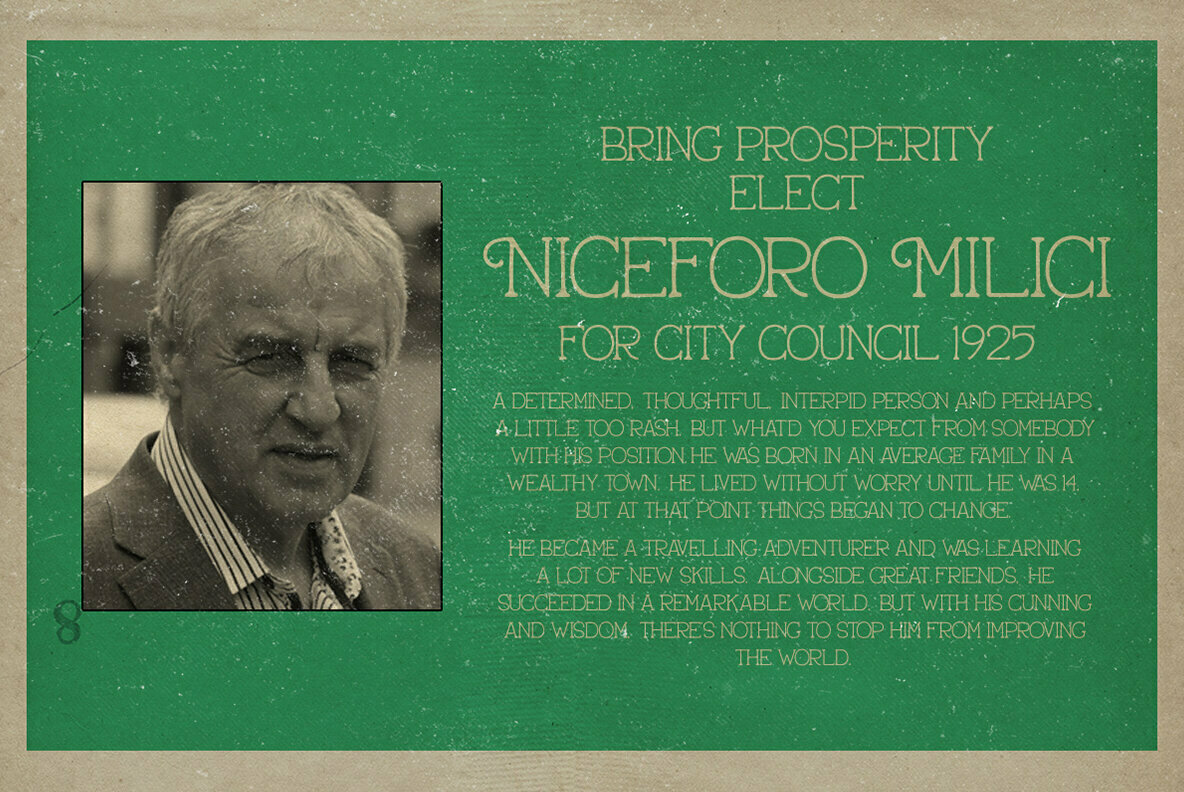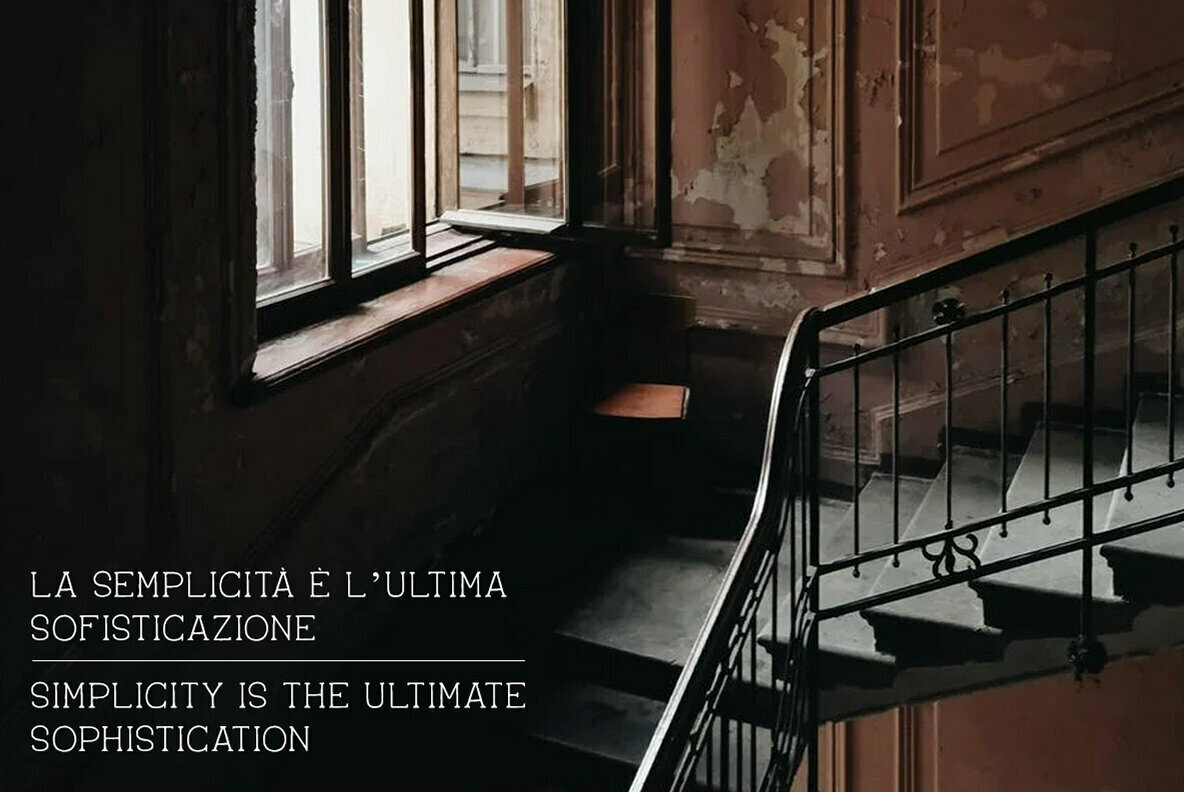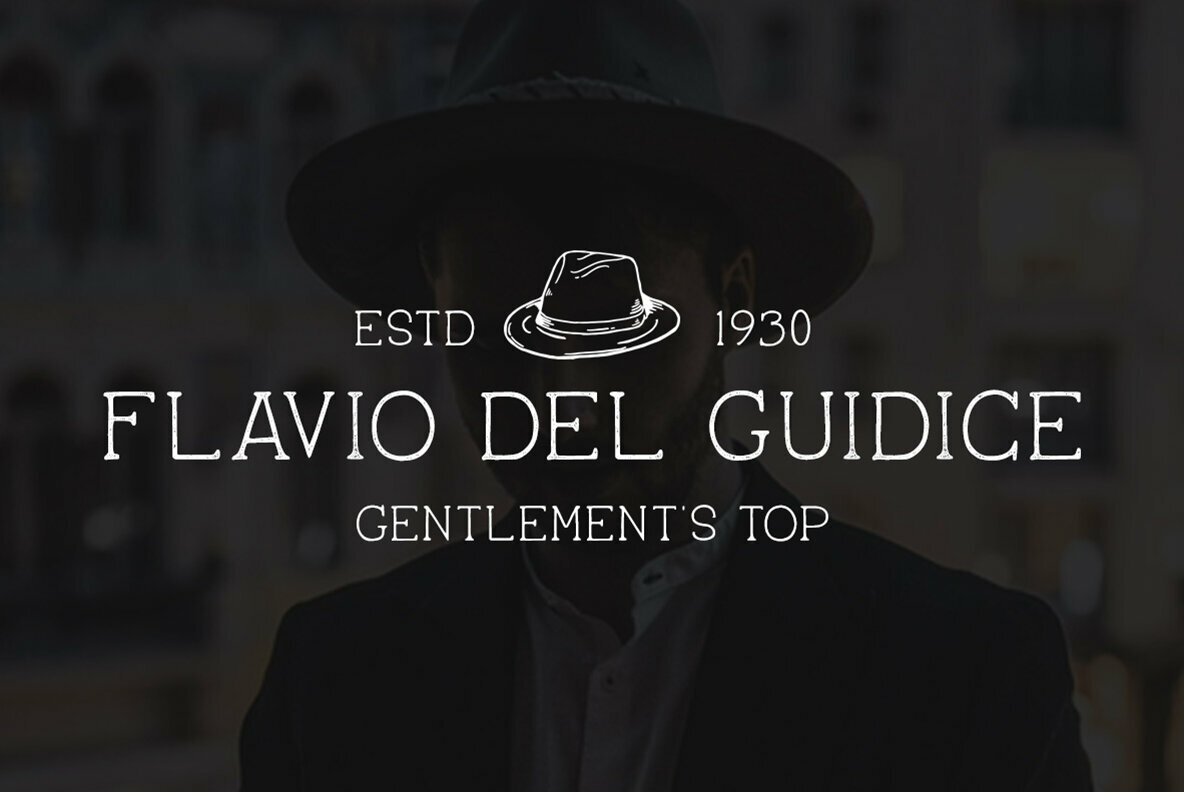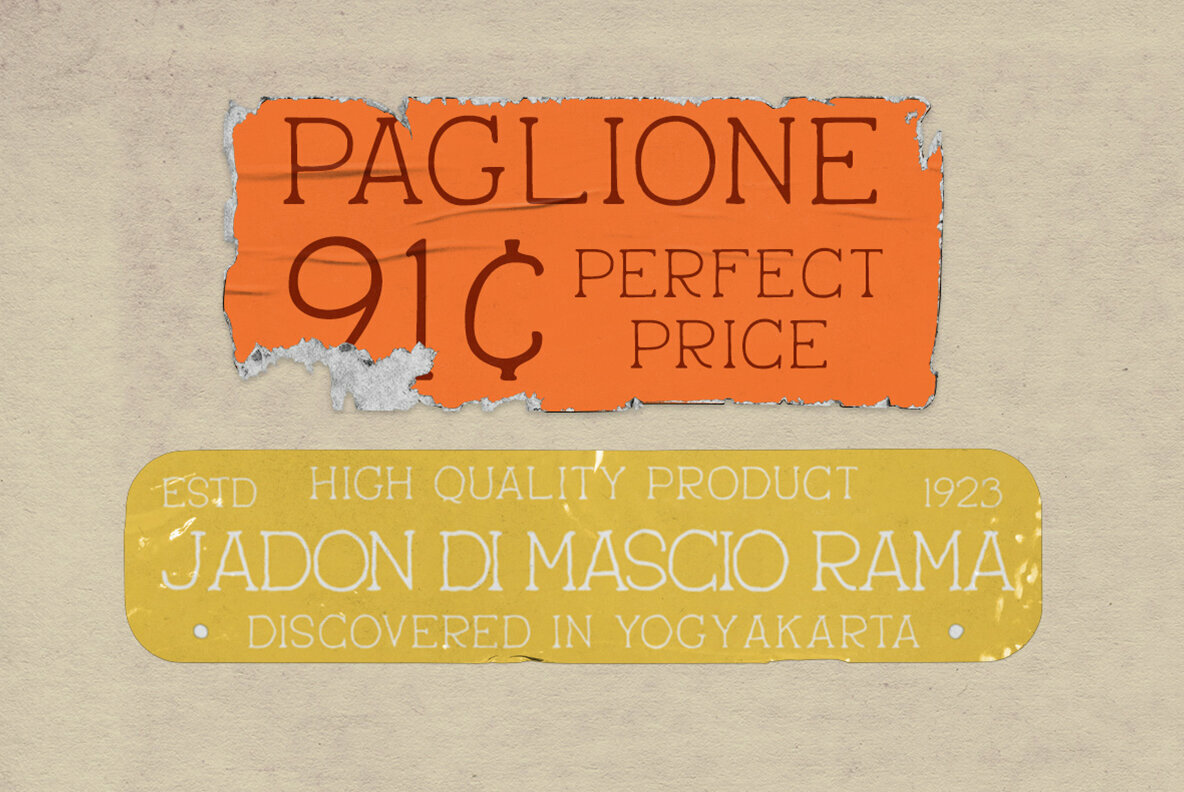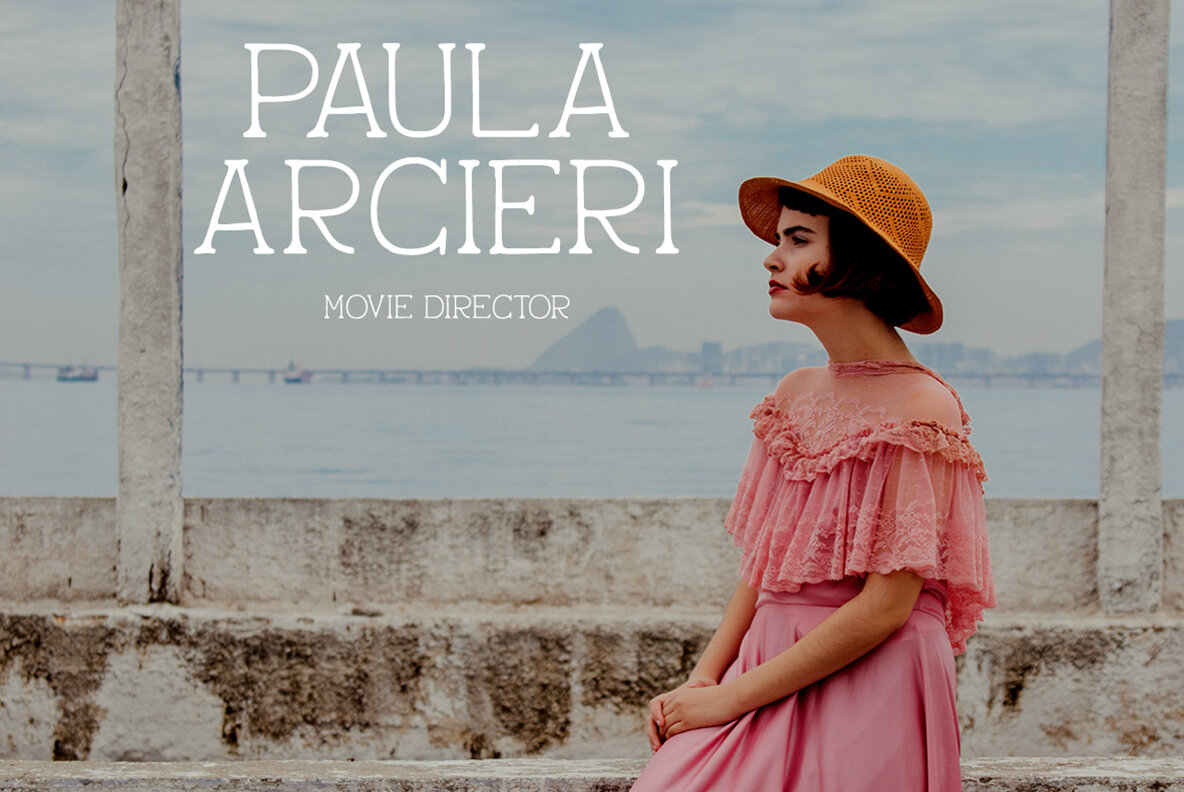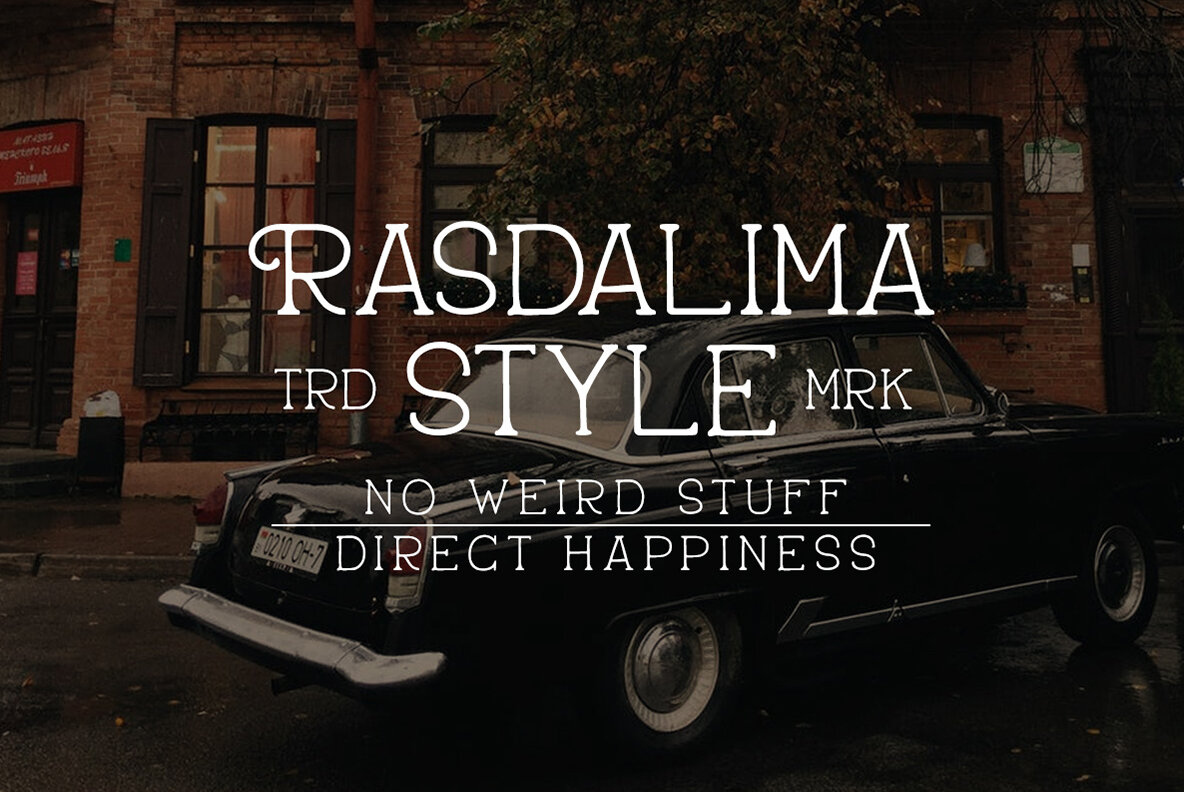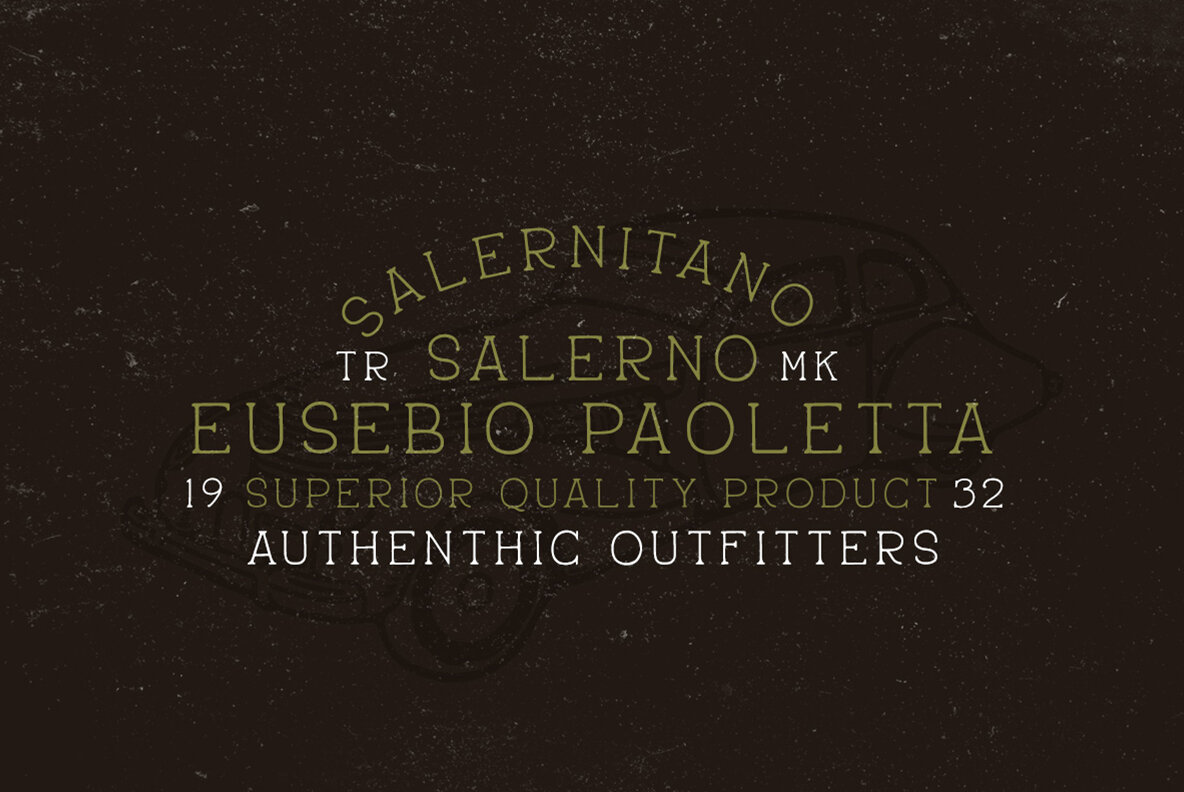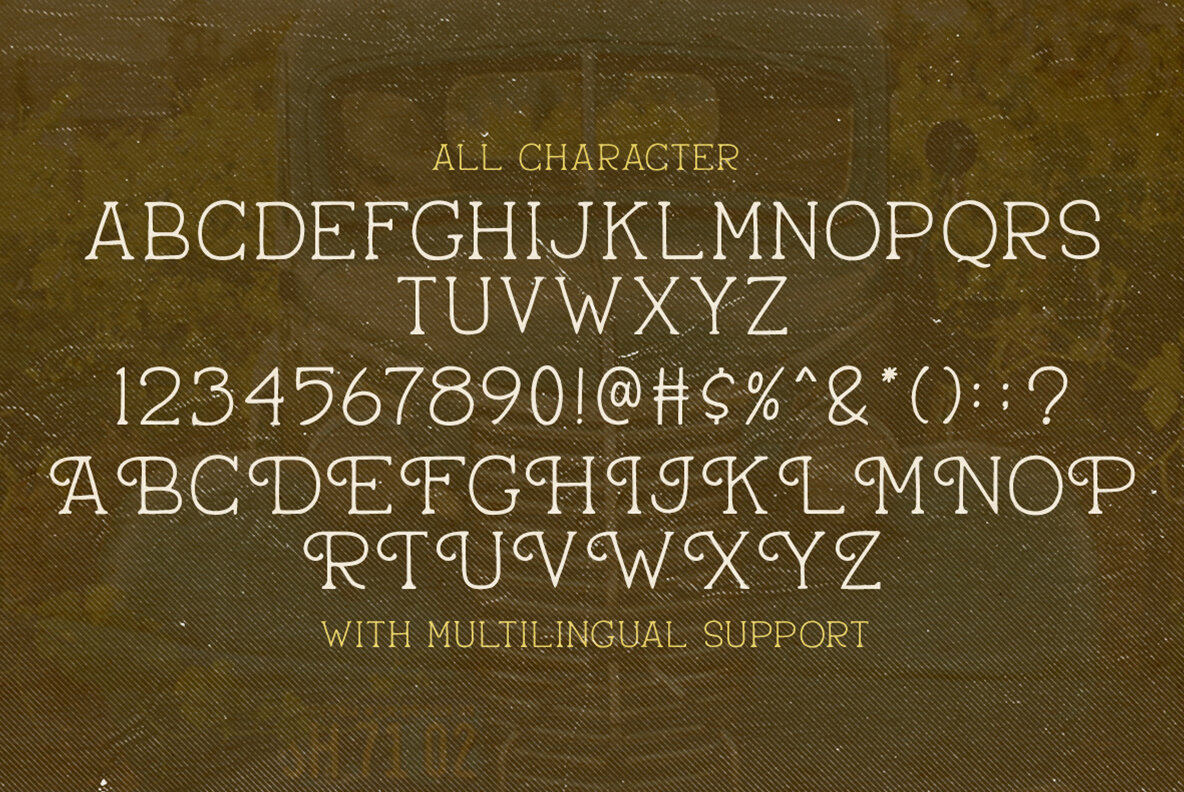
Pantaleone Font
Pantaleone makes your job of making vintage designs easier, this font is suitable for vintage design uses, especially for packaging, branding, quotes, etc.
Features:
- Numbers and Punctuation
- Multilingual